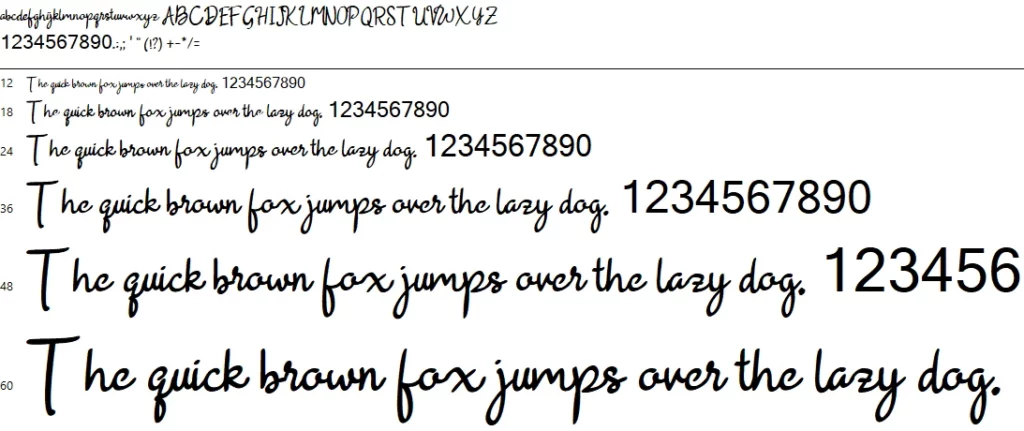
Beauty Rains is a Handwritten Script font designed and shared by Viaction Type.Co. For original handwriting brush styles, Beauty Rains script is very attractive and user-friendly. This font has the ability to adapt to current design trends. This font is almost at the top of the list of designers’ favorites. It can add a new dimension to your work as it can attract the attention of the audience.
Since this font is specially designed for designing, we can say that it is not suitable for official work.
Beauty Rains is very useful for designing purposes such as logo, banner, brochure, movie poster, title, greetings card, and many more. Also, YouTubers can use this font for their thumbnail and channel art. Gaming YouTubers can use this for their streaming thumbnail and channel logo. Then finally it can be said that you can use it for different purposes.
What type of font is Beauty Rains?
Ans: Beauty Rains is a Handwritten Script font designed and shared by Viaction Type.Co.
Is there any font similar to Beauty Rains in Google Fonts?
Ans: Cookie is mostly similar to Beauty Rains to Google fonts.